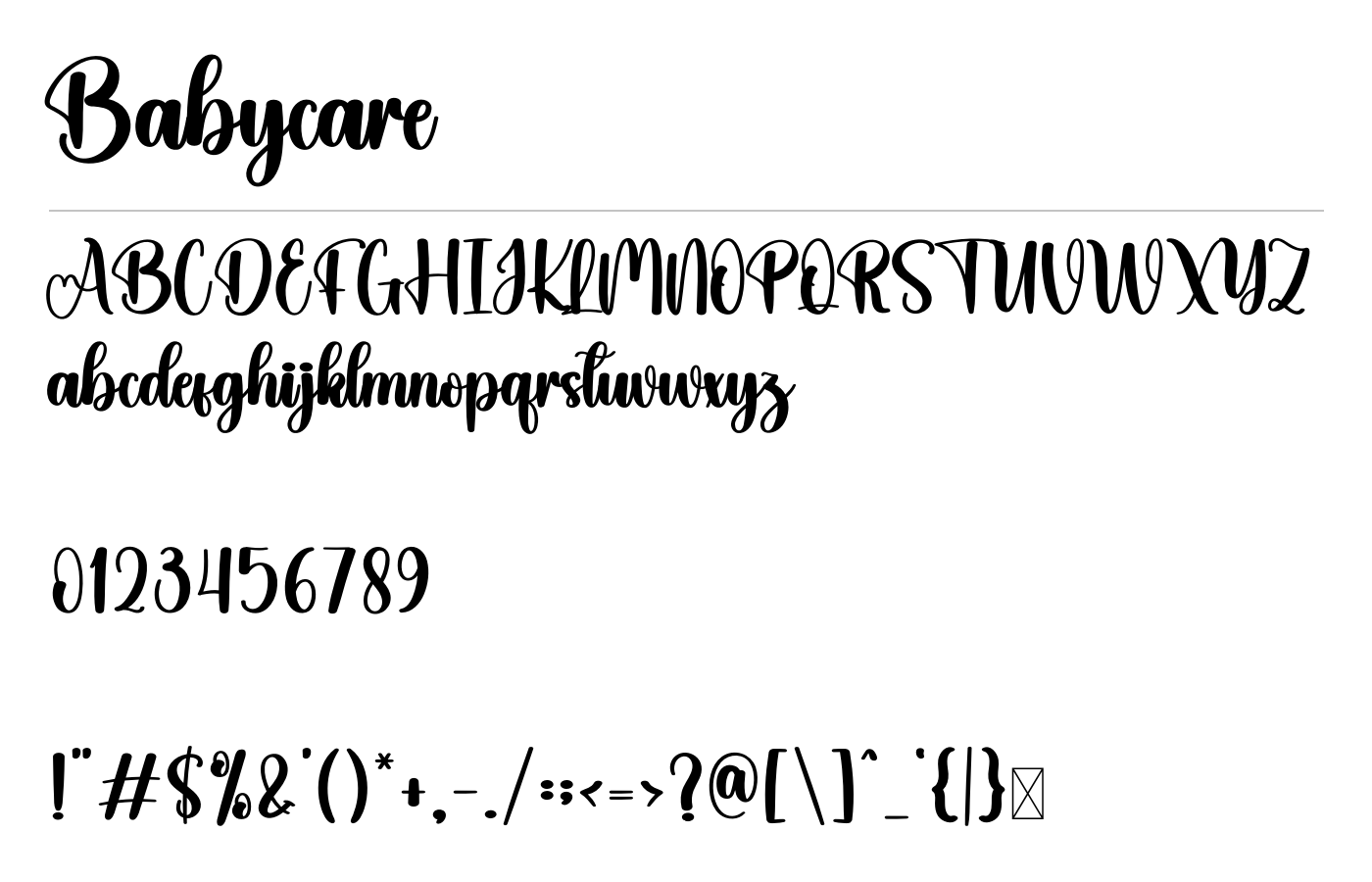
Babycare is a friendly and playful script font featuring smooth, rounded strokes with a medium to bold weight, offering a warm and approachable feel. Its lively uppercase letters contrast with more solid, rounded lowercase forms, creating a charming and informal style ideal for branding related to children, toys, or casual, creative projects. This font works well for logos, packaging, and headlines where a soft, handcrafted touch is desired.
Babycare Font